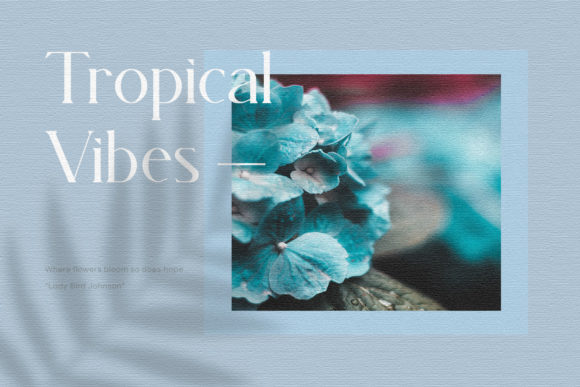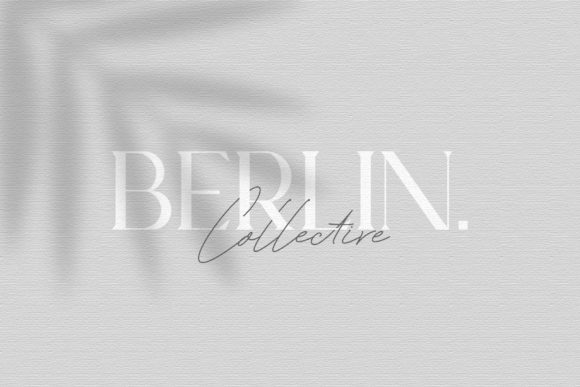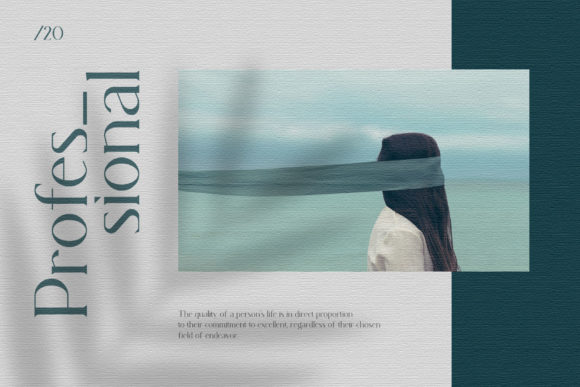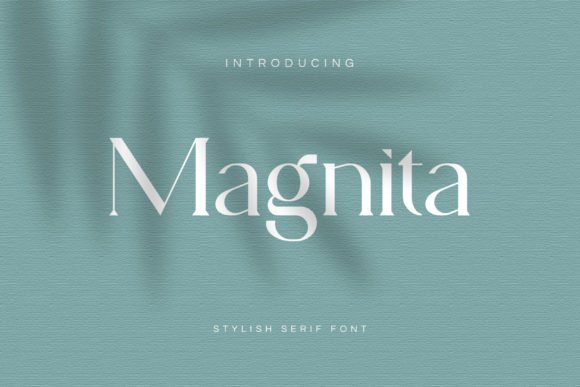
Introduction to Magnita Font
Magnita is a clean and timeless serif font with edgy details.
This unique font feels bold, yet familiar, and will turn any design idea into a true standout .
Key Features of Magnita Font
Why Choose Magnita Font?
Magnita Font offers exceptional quality and versatility, making it a valuable addition to your design toolkit. Whether you’re creating for personal projects or commercial use, Magnita Font delivers professional results.